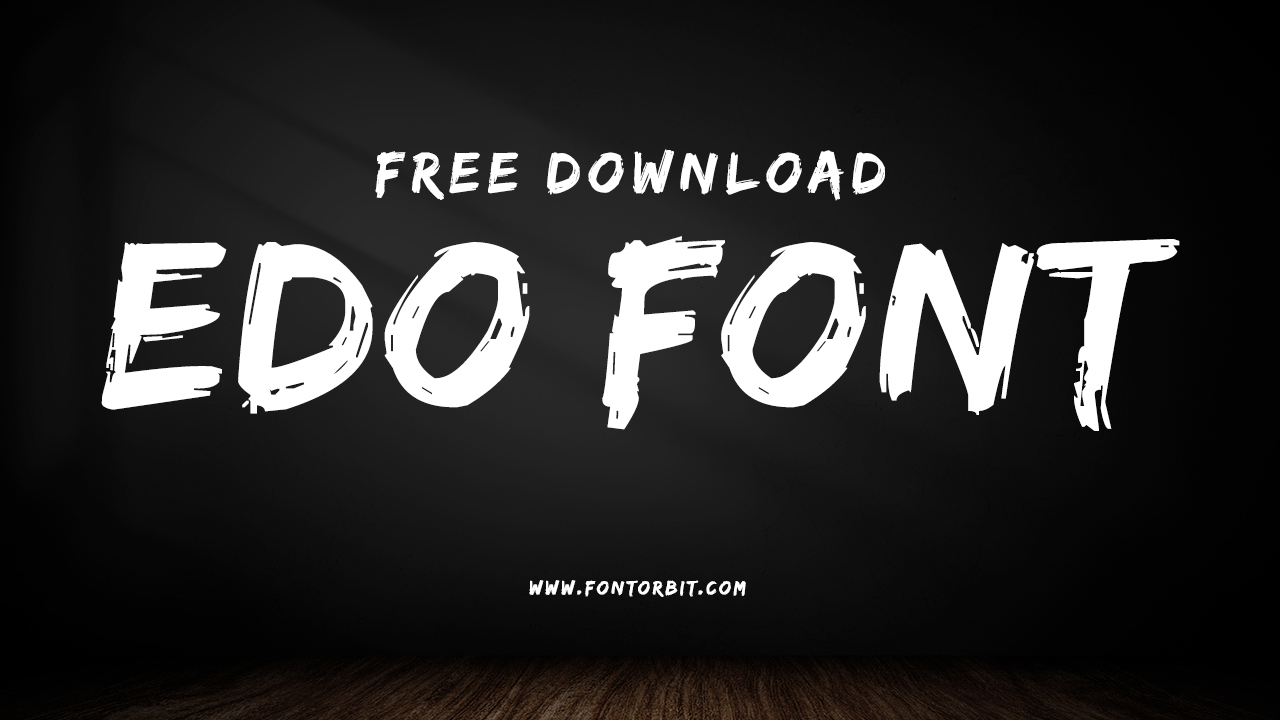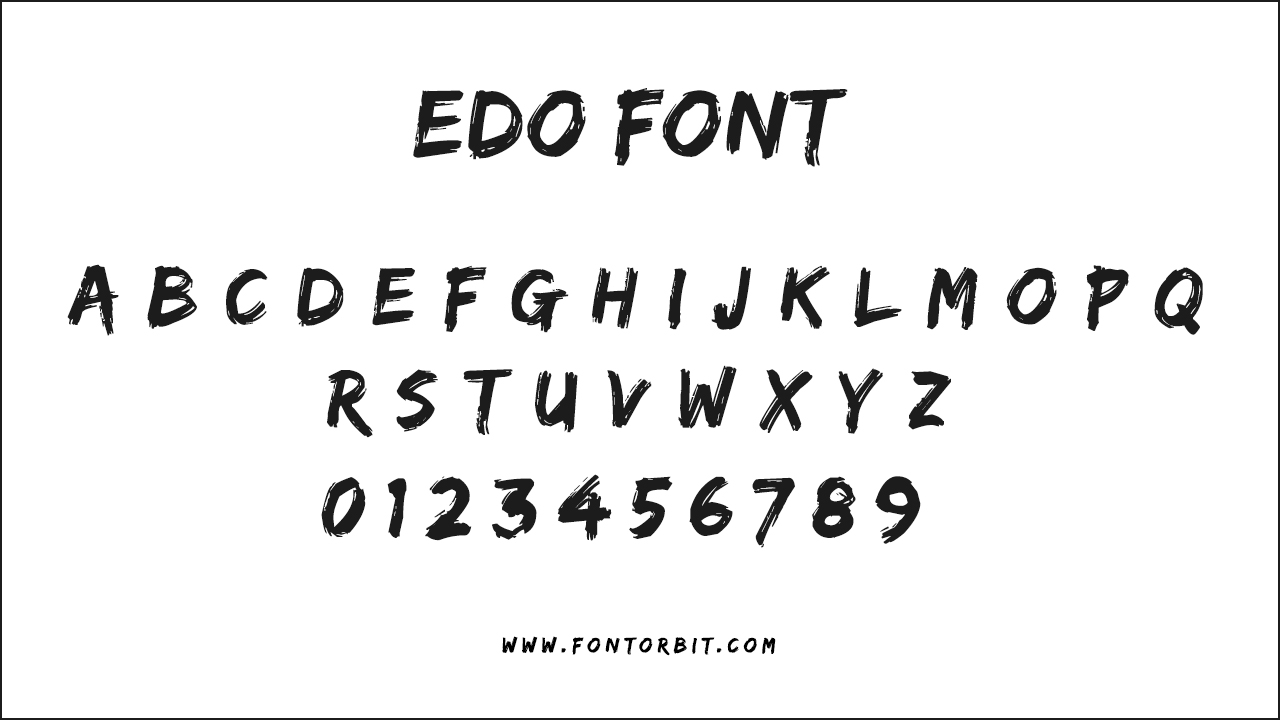
Edo font is a dynamic and engaging script font designed by Vic Fieger, first uploaded in January 2009. Known for its bold and rugged appearance, it carries the PostScript name “Edo-Regular” and features a character set that supports a wide range of languages.
The font draws inspiration from graffiti and urban street art, making it an ideal choice for designs that require a raw, hand-drawn aesthetic. Despite its distressed look, Edo maintains excellent legibility, even at larger sizes, making it perfect for headlines, logos, and other design projects that need to stand out.
The Edo Font Family
- Edo Regular
The Edo font family consists of just one style—Regular. This style encapsulates the essence of urban design with a brush script influence, creating a perfect blend of roughness and fluidity. The font offers broad design flexibility with a comprehensive set of glyphs, making it suitable for a variety of projects.
Its all-caps design with a slight slant gives it a hand-drawn, painted feel, adding a touch of grunge and street art to your text. Supporting multiple languages, Edo is versatile and can be used across various linguistic needs.
Notable Uses: Edo Font
- Cultural event materials
- Book Covers
Edo is often used in designs where a bold, urban script is desired. Its rugged, hand-drawn appearance pairs well with minimalist fonts, creating a striking visual contrast in both digital and print formats. Ideal for various personal and professional design projects, Edo brings a unique blend of street style and artistic flair.
Edo is perfect for designers looking to infuse their work with a touch of urban grit and hand-crafted charm. It’s a versatile tool for creating bold, eye-catching designs.
While Edo only comes in a regular style, you can use font editing software like FontForge or Glyphs to modify its glyphs or create unique variations while maintaining its original ruggedness. The font is best used in medium to large sizes (24pt and above) to emphasize its rough script style. Edo’s distinctive character and broad language support make it a valuable addition to any designer’s toolkit.
The “Edo” font is a script typeface with a rugged, hand-drawn style, often used for bold, eye-catching designs like posters, headlines, and logos. It mimics the raw, artistic feel of graffiti and street art.
Pair Edo with clean, minimalist sans-serifs like Helvetica or modern serifs like Times New Roman to create a balanced design that allows Edo’s bold character to stand out.